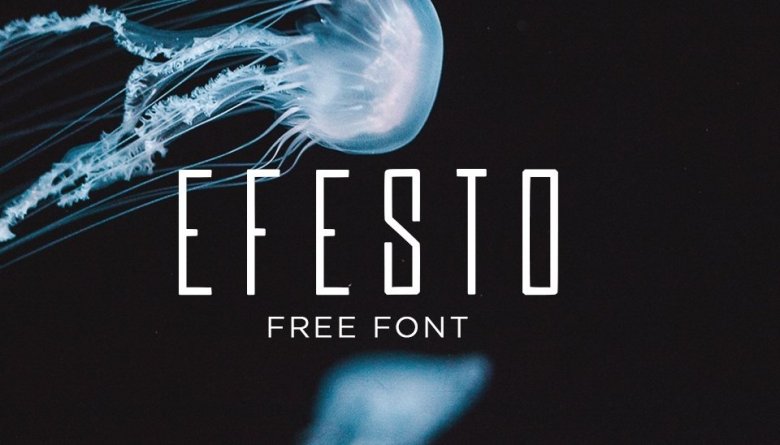
Efesto Typeface
It was great, it was my first impression of using it for a banner. A good display font, you will be very pleased to receive it. Introducing Efesto Typeface. Efesto designed and shared by Att Arts. Efesto Font is a minimal sans serif font, which contains 2 weights. Perfect for gorgeous logos, titles, web layouts and branding.